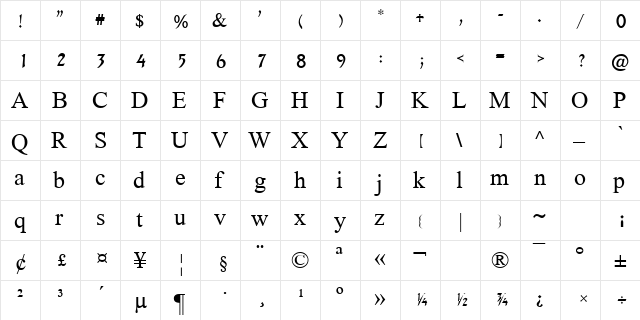
AdaMediumMF Regular
Design Context for AdaMediumMF Typeface
AdaMediumMF is a composed and adaptable typeface that performs quietly and consistently across a wide range of design contexts.